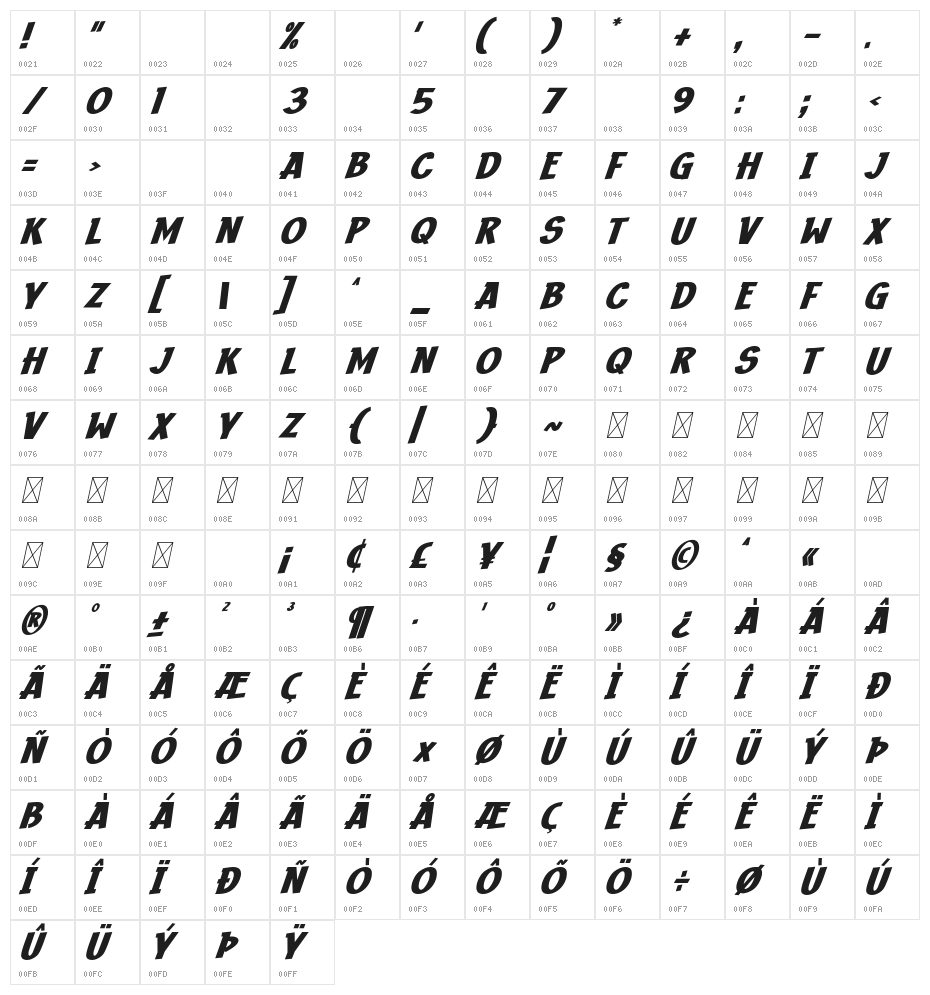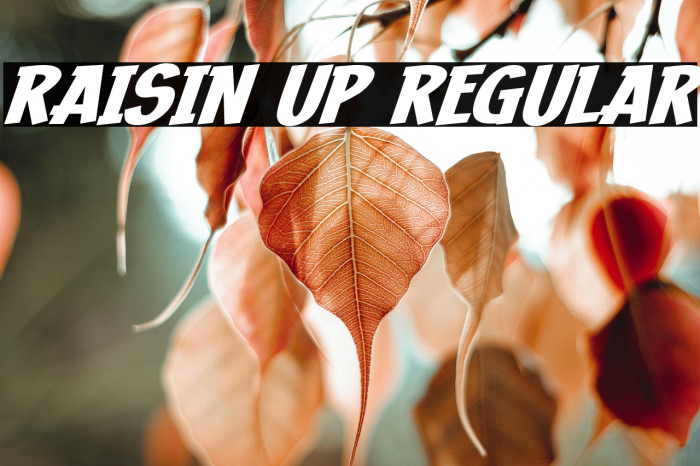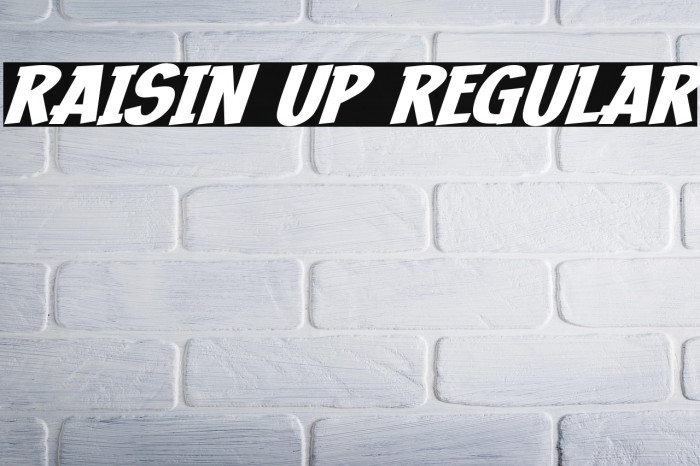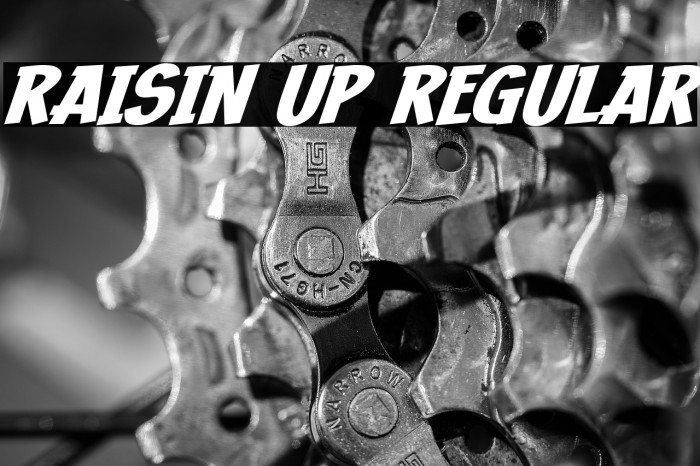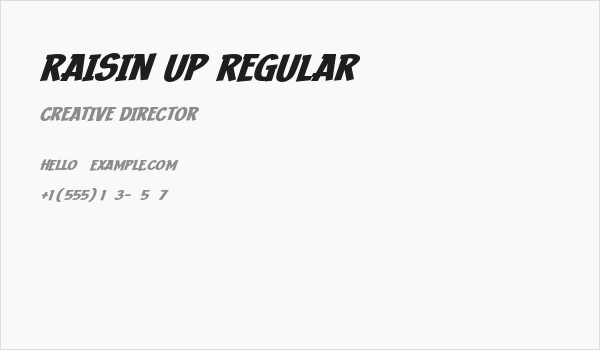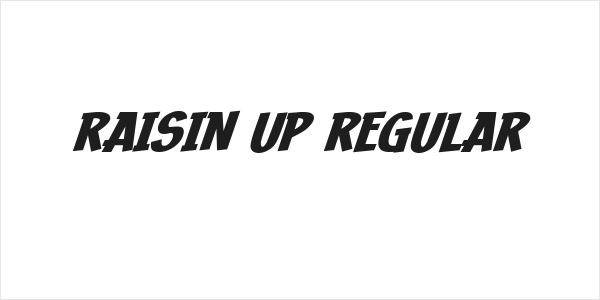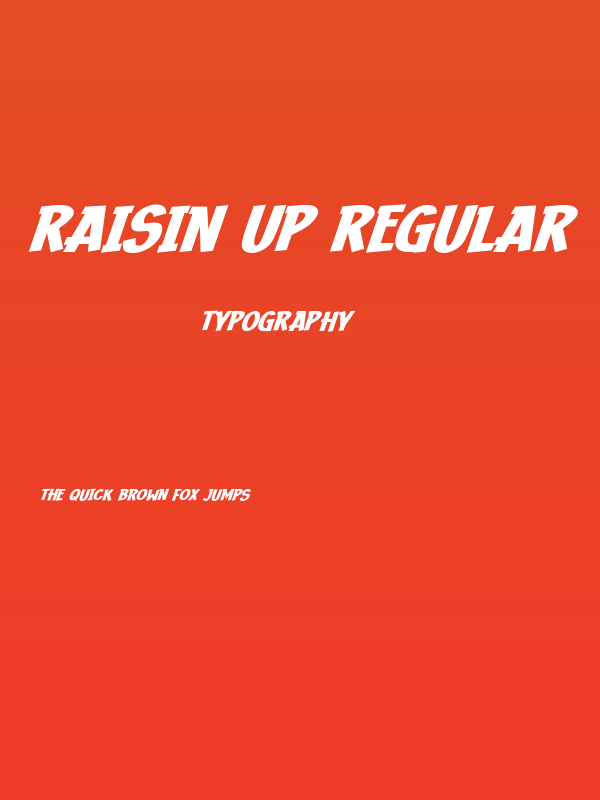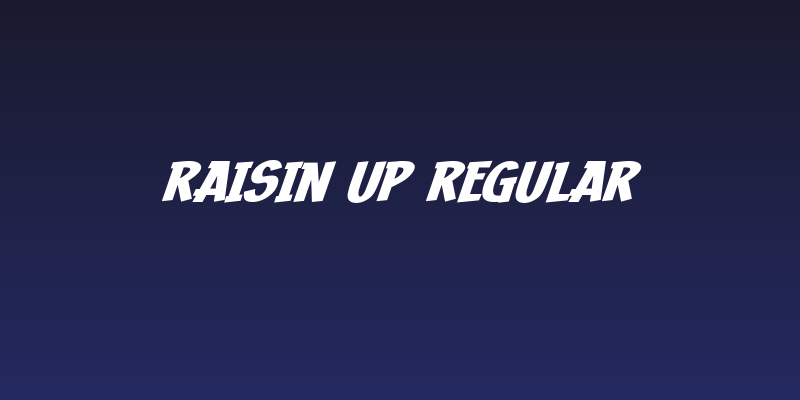
Raisin Up Regular Font
Raisin Up Regular Description
This font features a bold and dynamic style with a strong slant, giving it a sense of motion and energy. The characters are thick and robust, with a slightly condensed appearance that enhances their impact. The uppercase and lowercase letters maintain a consistent weight, contributing to a cohesive look. The numbers and special characters follow the same bold and slanted design, ensuring uniformity across all glyphs. The font's overall aesthetic is modern and assertive, making it suitable for attention-grabbing designs.
| Proposed Projects | Ideal for sports branding, dynamic posters, and energetic advertising campaigns. |